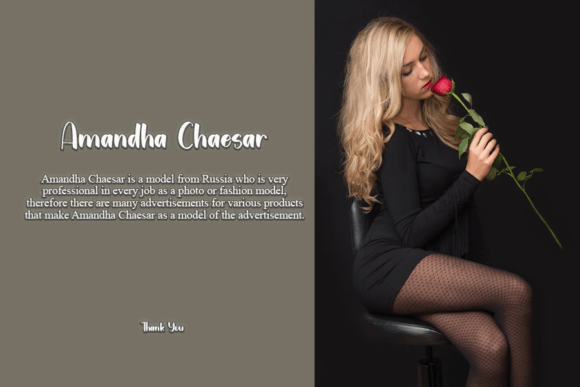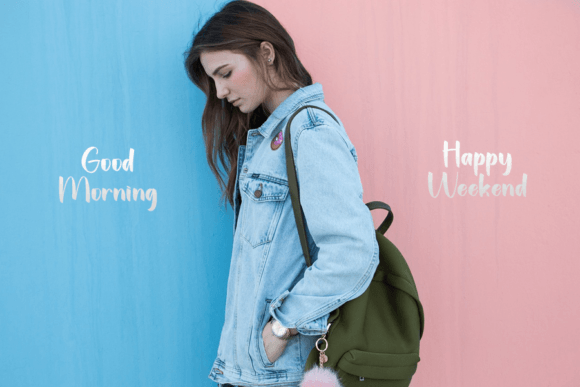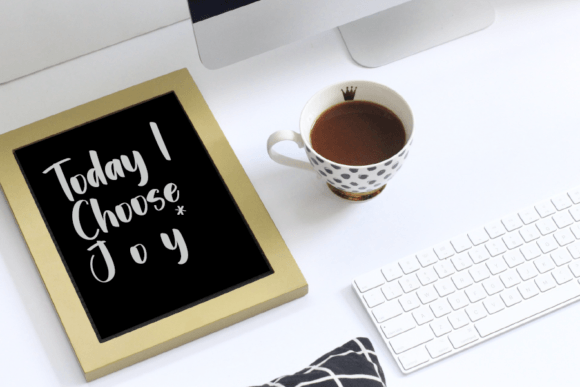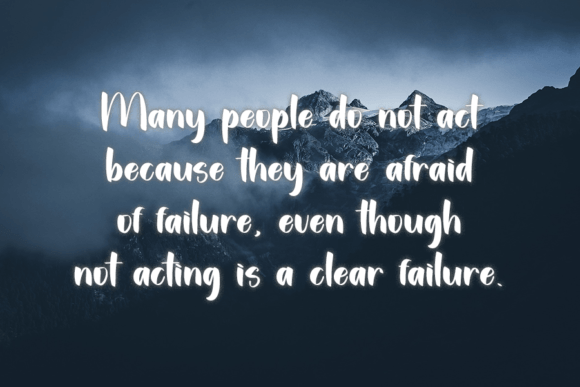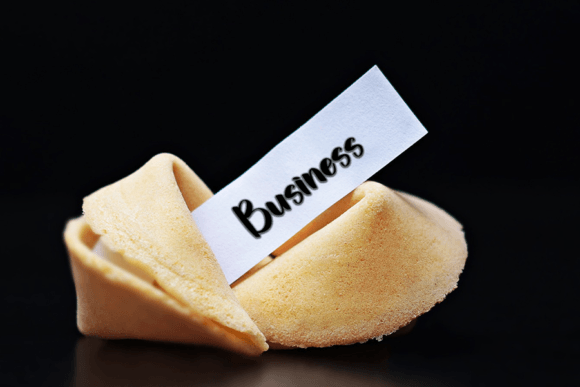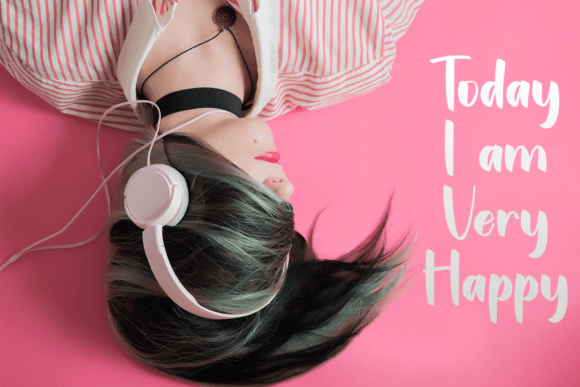
Hallo Handmade Font
About Hallo Handmade Font
Hallo Handmade is a cool and modern handwritten font. Whether you’re using it for crafts, digital design, presentations, or making greeting cards, this font has the potential to become your favorite go-to font, no matter the occasion!